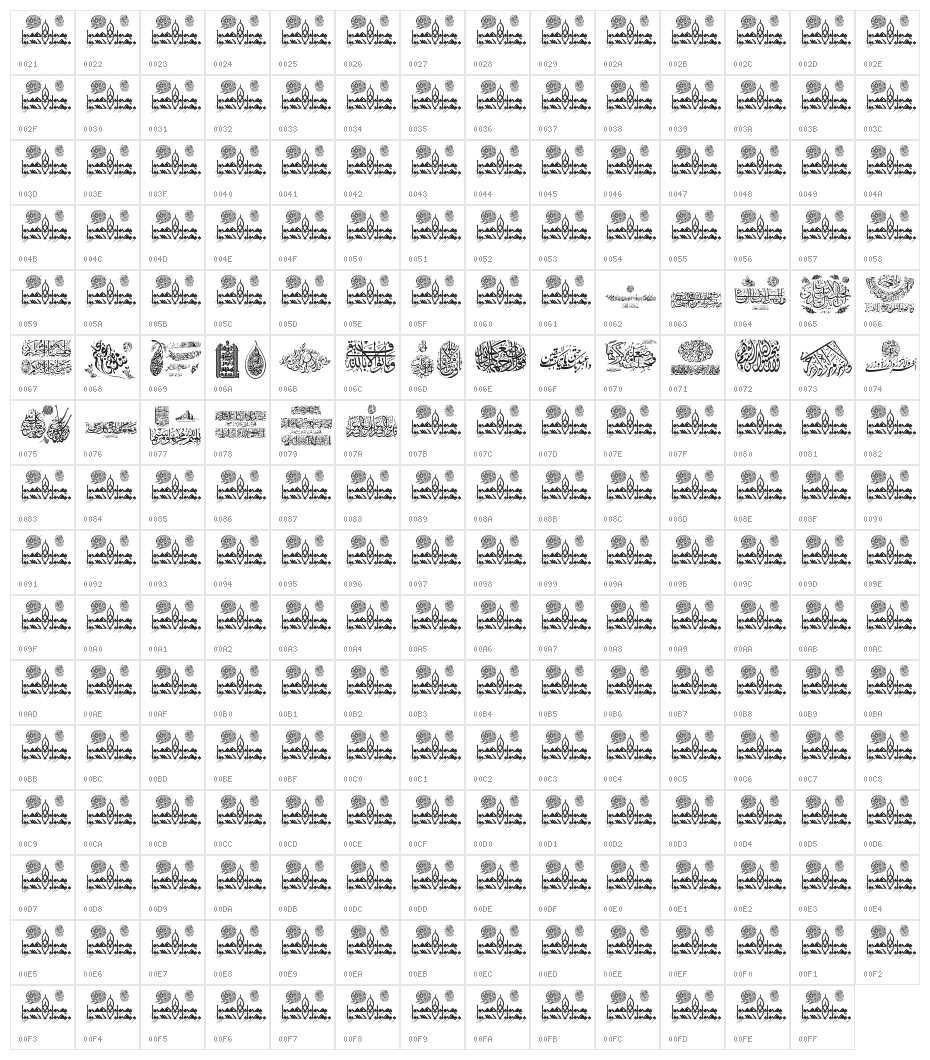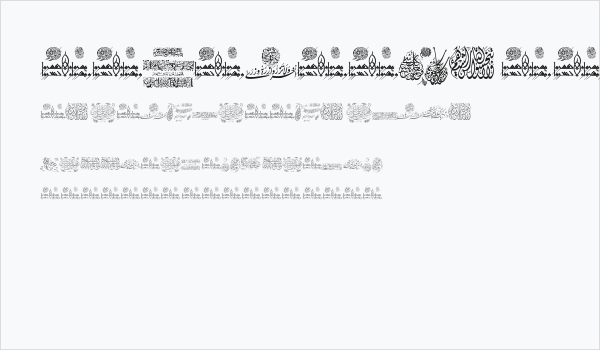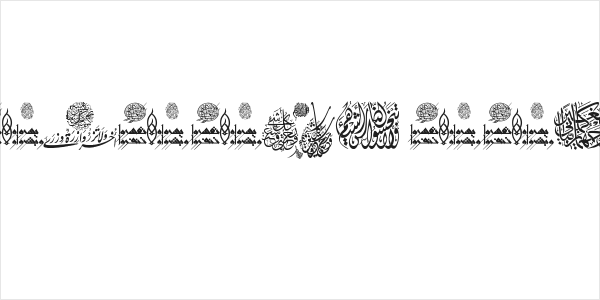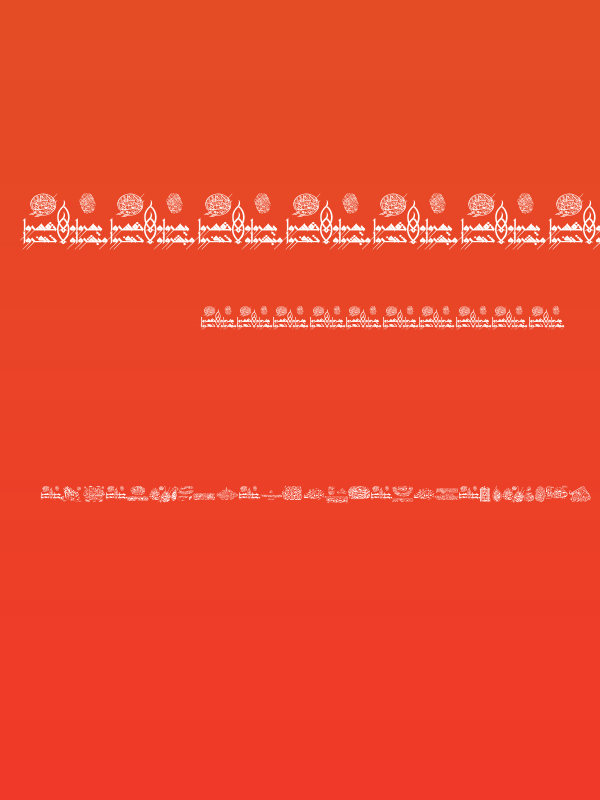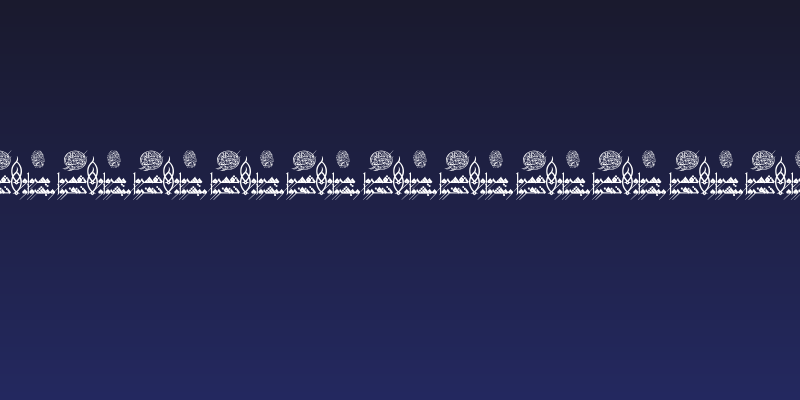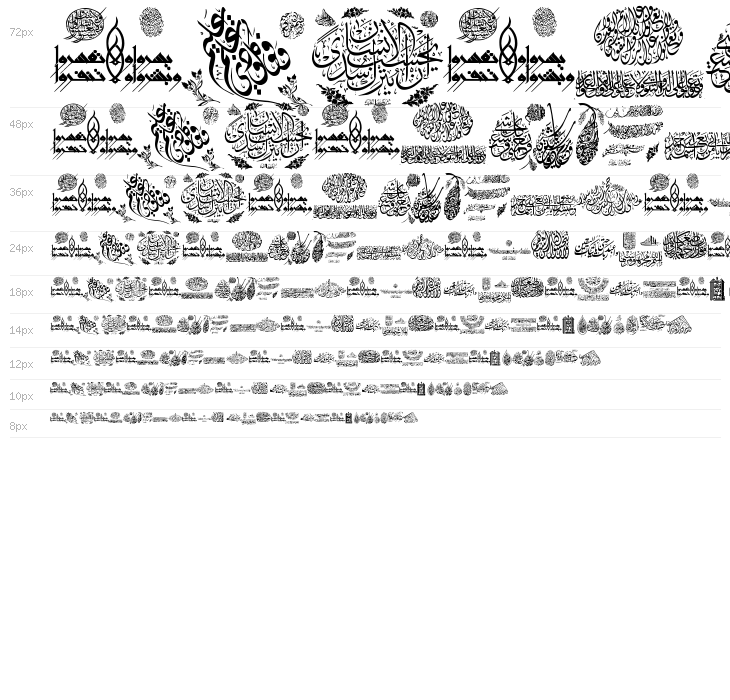
Aayat Quraan 14 Font
Aayat Quraan 14 Description
Highly decorative Arabic script featuring intricate calligraphic flourishes and ornamental motifs, with repeated floral and geometric elements integrated into the letterforms and borders.
| Overall Style | Decorative, Traditional, Religious |
| Use Case | Decorative borders, religious texts, art pieces |
| Proposed Projects | Religious manuscripts, ceremonial documents, decorative borders, Islamic art, book covers, certificates. |